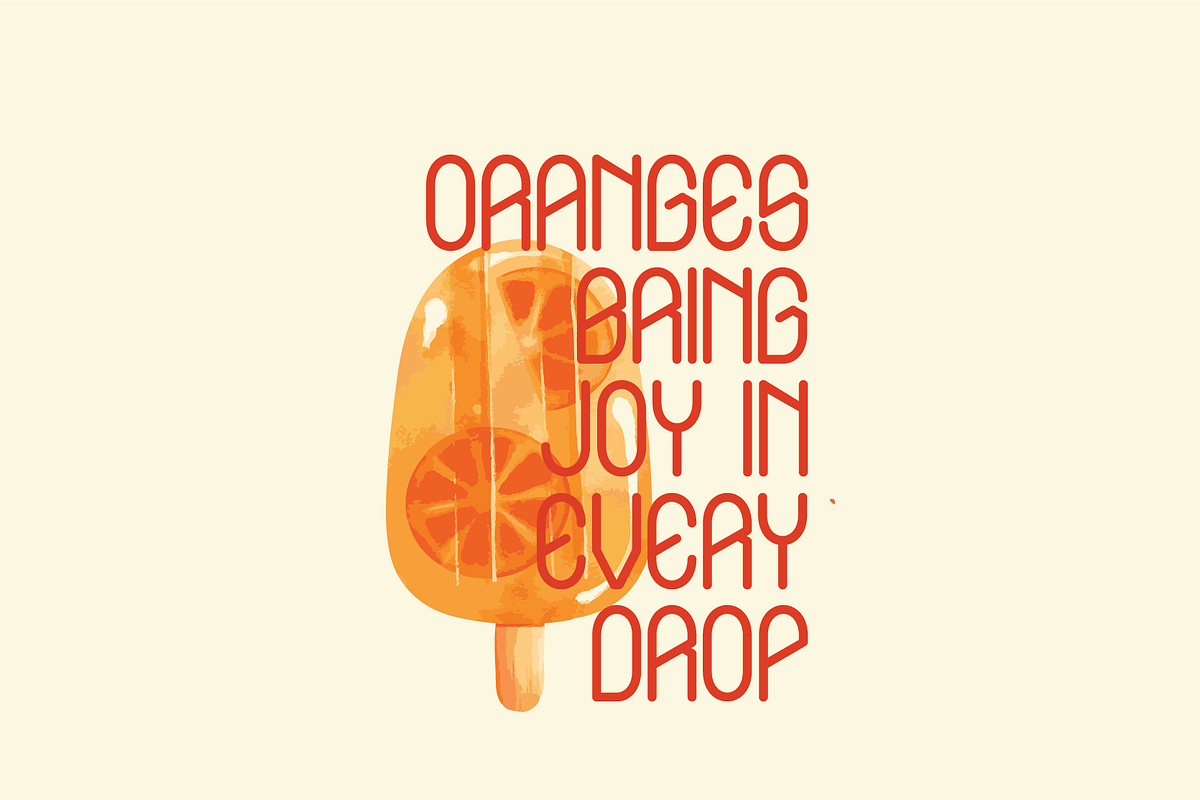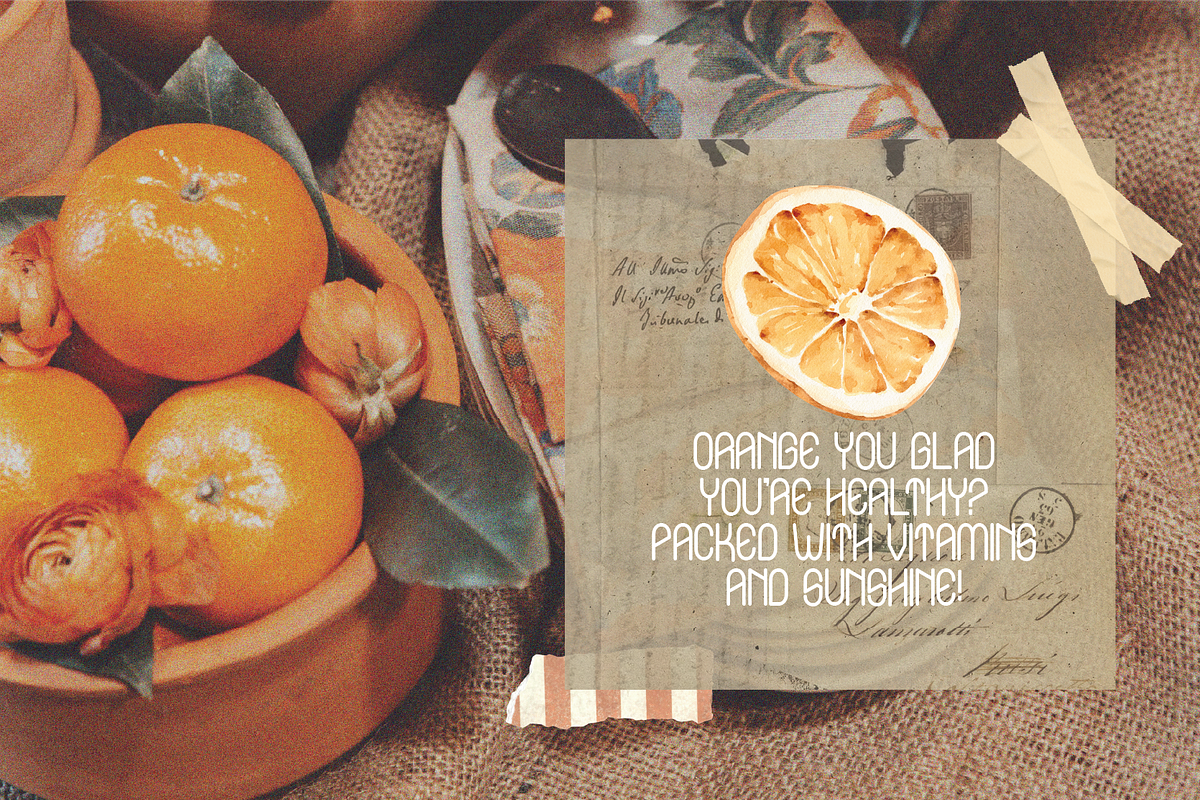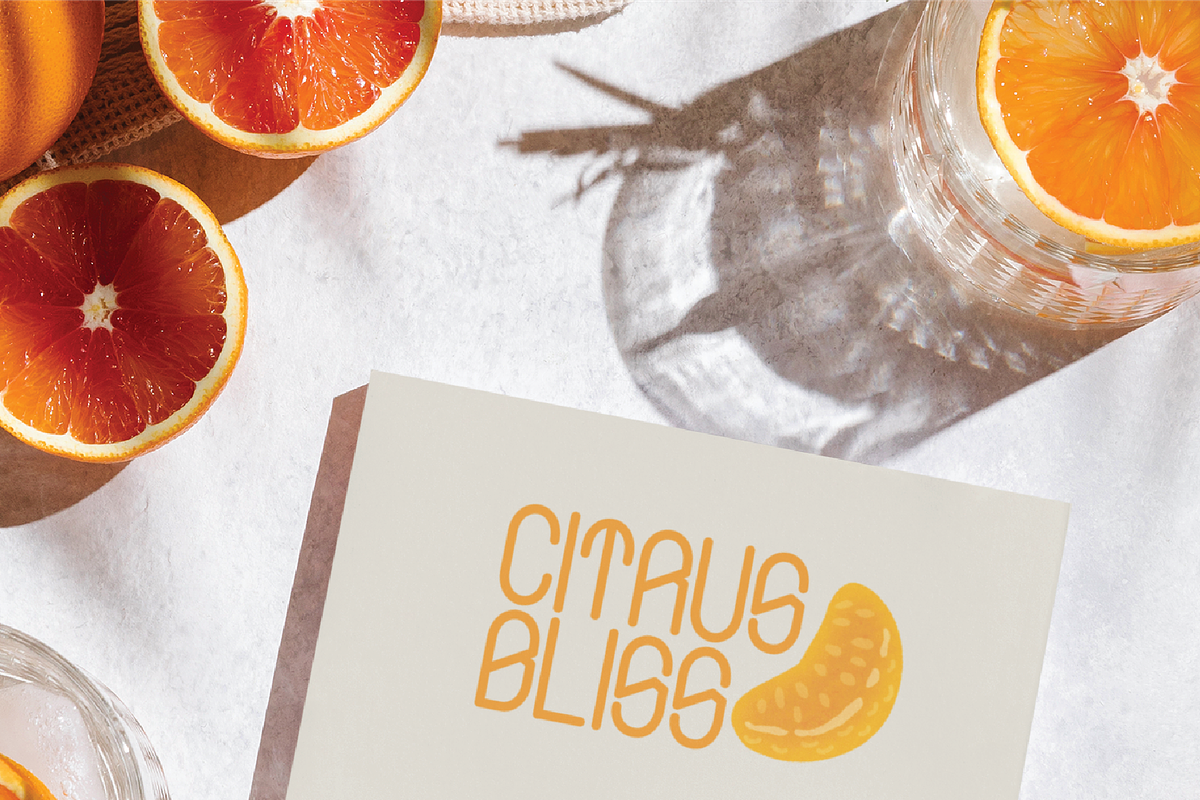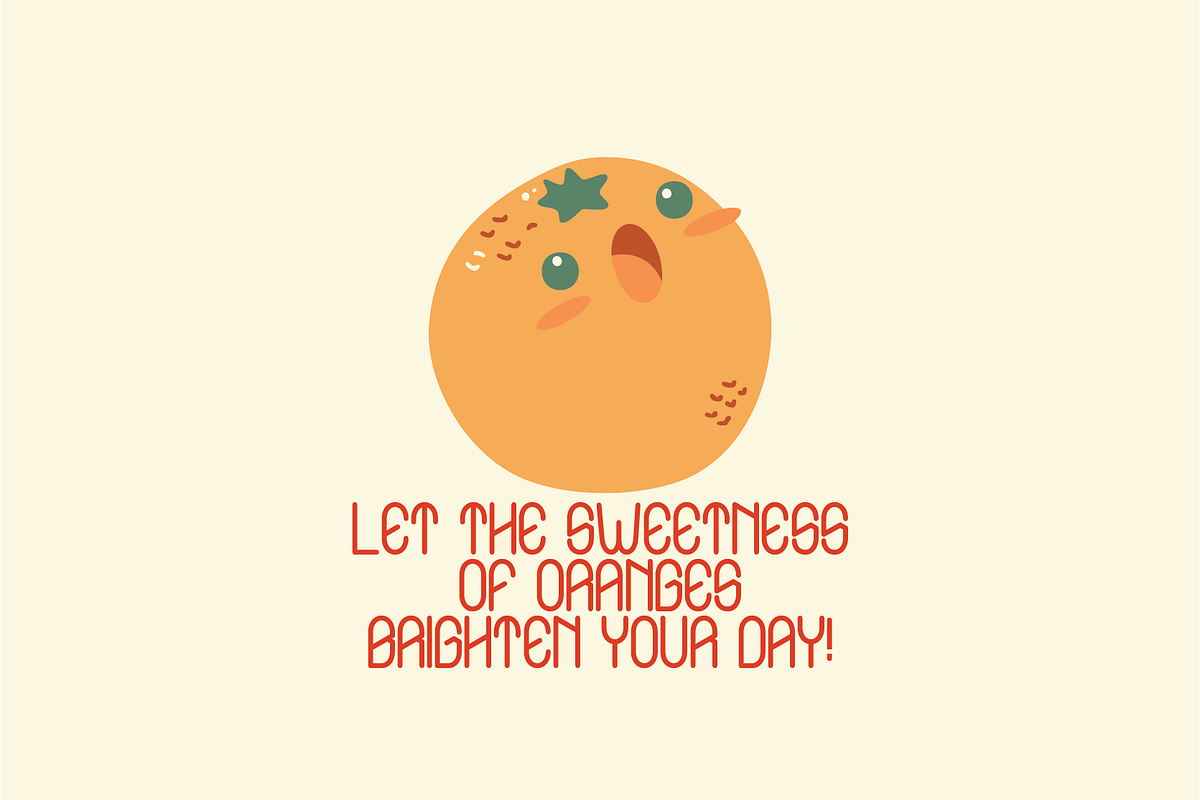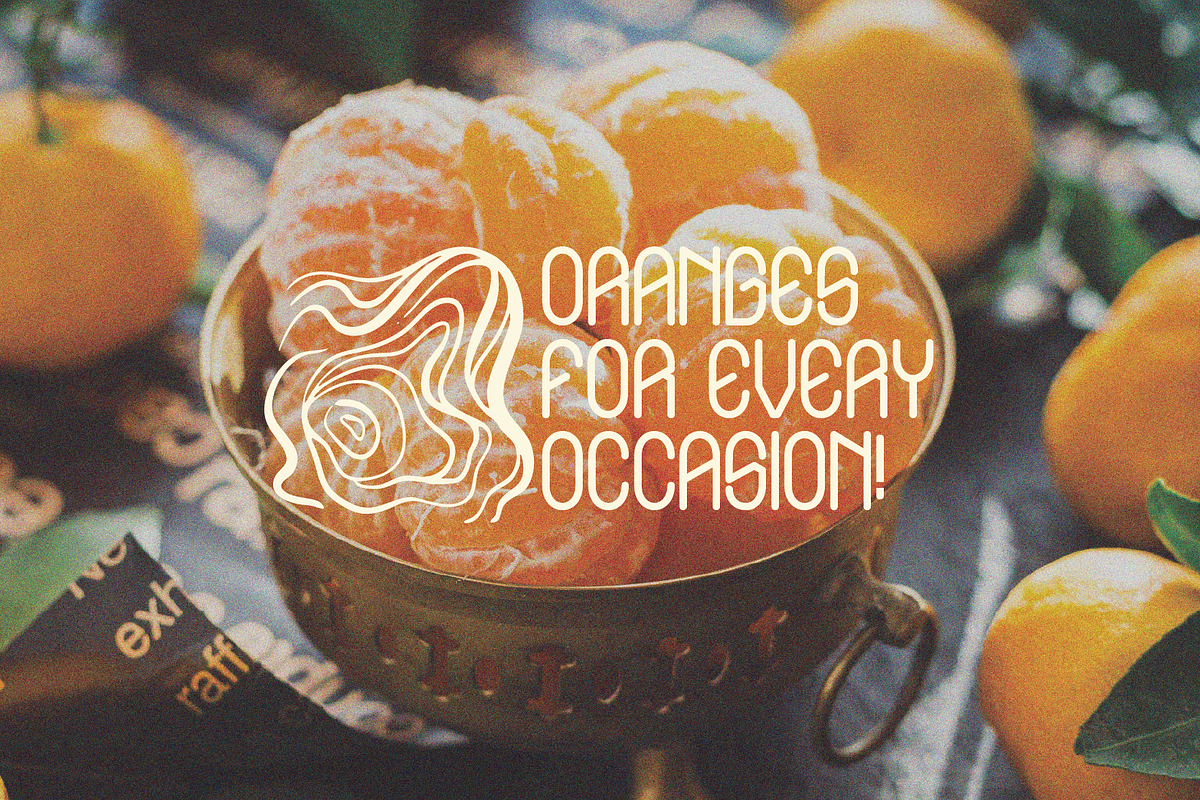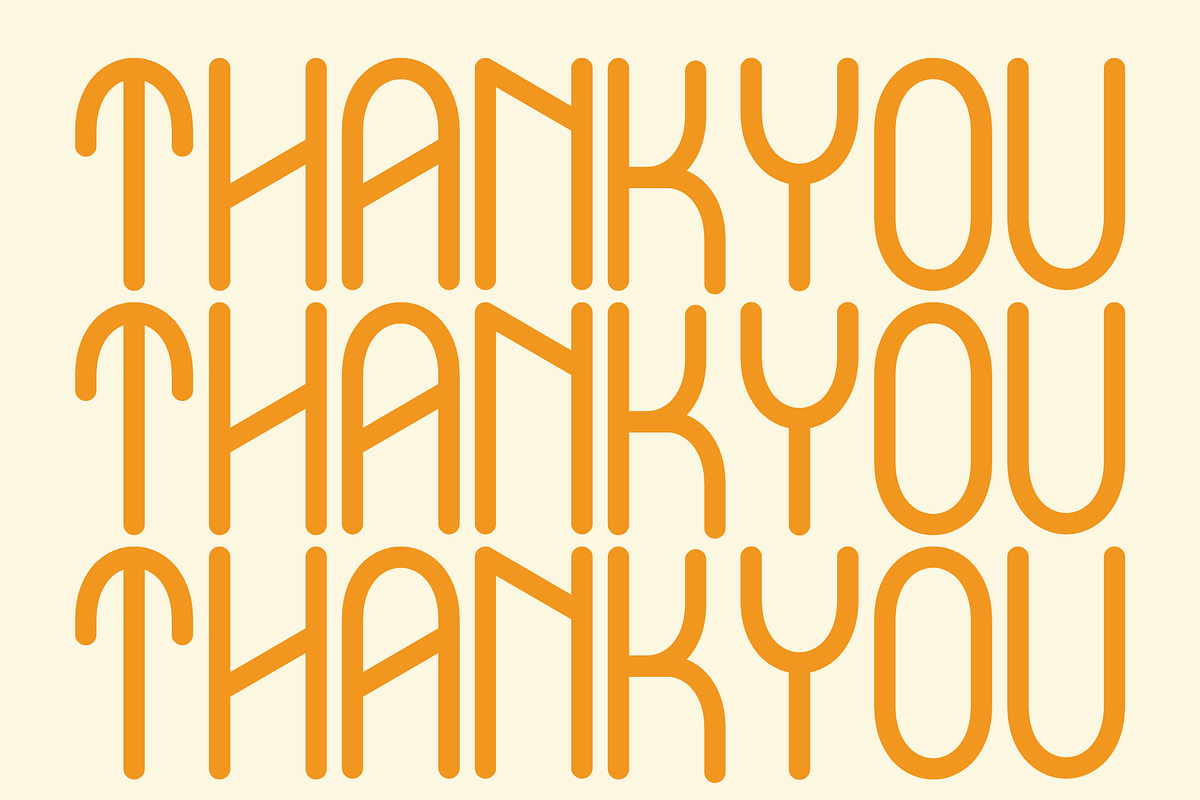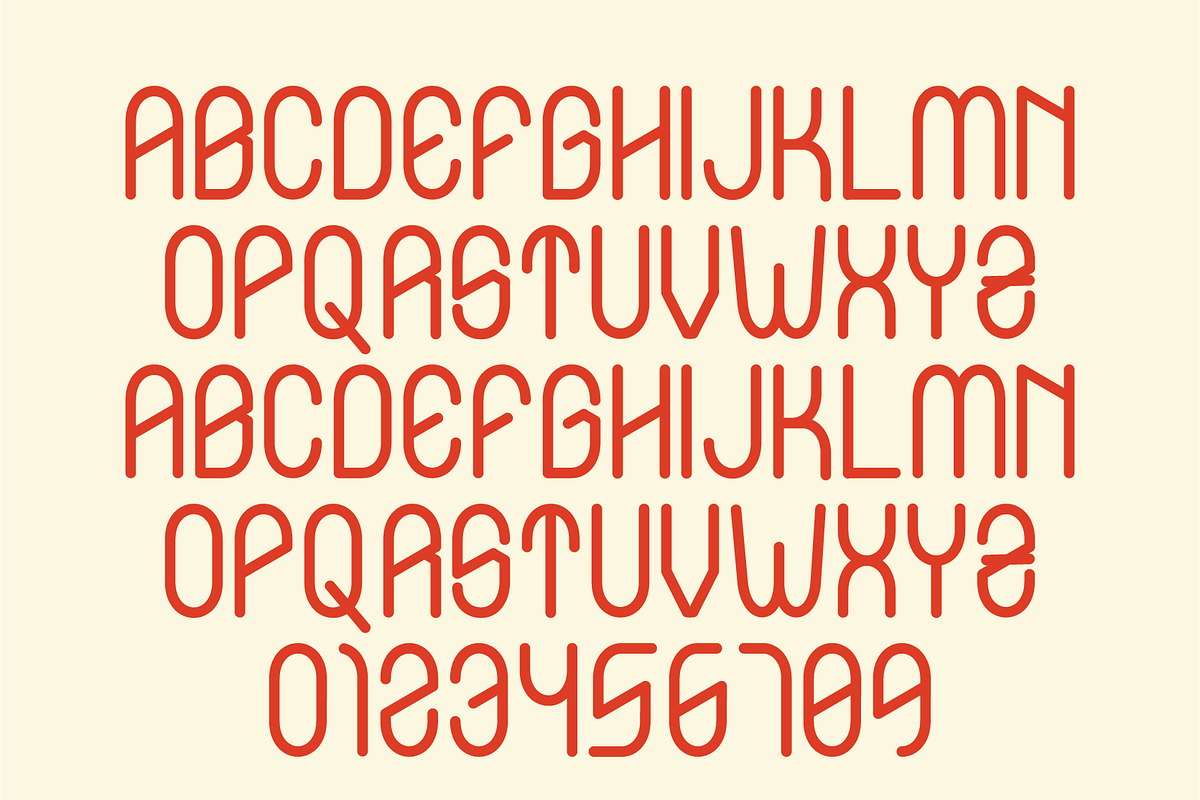
Orangekiss - Playful font
Orangekiss The font features a clean, modern design with thin, rounded letters. The repeating pattern of the letters creates a sense of movement and rhythm, making it dynamic and visually engaging.
- Numbers, marks and symbols